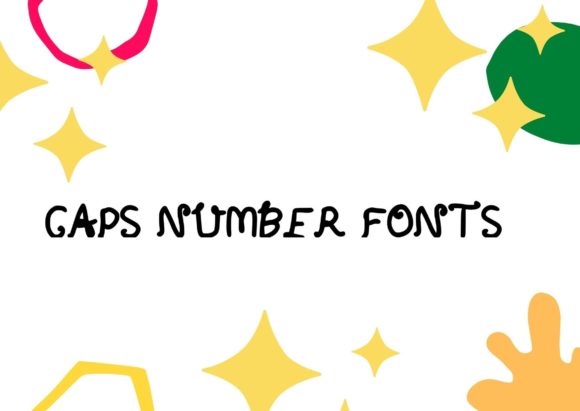
Get ready to ignite your creative spark with Caps Number Font, the ultimate script font family that exudes charm and personality. This meticulously crafted font, lovingly brought to life by CREATILORY, is a symphony of playful lines and elegant curves that will captivate your audience and leave them spellbound.
Immerse yourself in the whimsical world of Caps Number Font, where each letter dances and twirls with a mischievous grin. Picture your words taking on a life of their own, captivating your readers with their undeniable allure. Whether you're a seasoned designer or just starting your creative journey, Caps Number Font is your trusty companion, ready to elevate your projects to new heights.
Dive into a world of endless possibilities with Caps Number Font. Its versatility knows no bounds, effortlessly adaptable to a myriad of creative endeavors. Unleash your inner artist and let your imagination run wild as you create enchanting chalkboard quotes, teaching materials, and an array of other captivating designs.
With Caps Number Font, the ordinary becomes extraordinary. Its authentic handwritten charm adds a touch of warmth and authenticity to your designs, creating a personal connection with your audience that will leave them feeling inspired and engaged.
Don't settle for mundane fonts that blend into the background. Embrace the magic of Caps Number Font and let your creativity soar. It's the perfect font for fashionistas, educators, and anyone who craves a touch of whimsy in their designs.